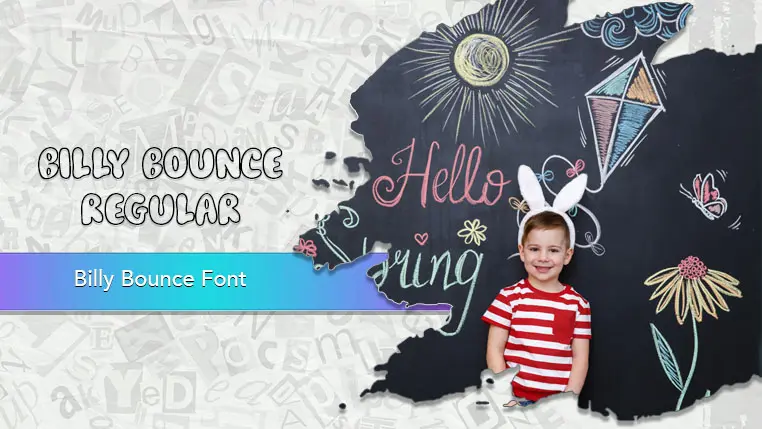
The Billy Bounce font family may be ideal for you if you enjoy working on an artistic design project. The lively, expressive look of this typeface, which was created by Eko Bimantara, makes it ideal for Children's Designs, Playful Branding and Logos and Its bold and attention-grabbing appearance makes it excellent for headlines in posters, flyers, advertisements, social media graphics, and website banners where you want to make an immediate, cheerful impact. Great for informal parties, birthdays, or fun gatherings where you want the invitation to be lively and joyful. and other light-hearted visual projects.
Regular are the one primary font styles of the Billy Bounce font family. You may build dynamic, visually appealing text layouts with the distinct flair that each style offers. With crisp, readable lines and a relaxed tone.